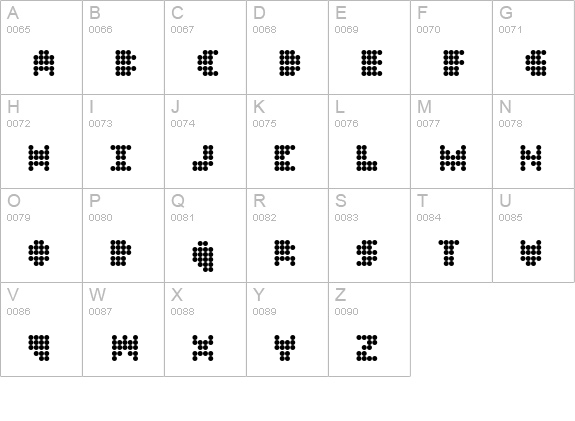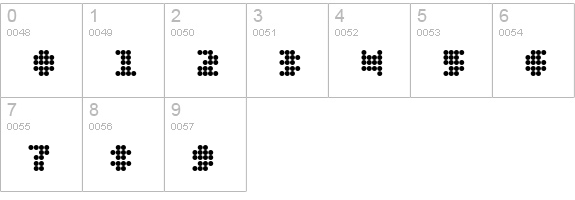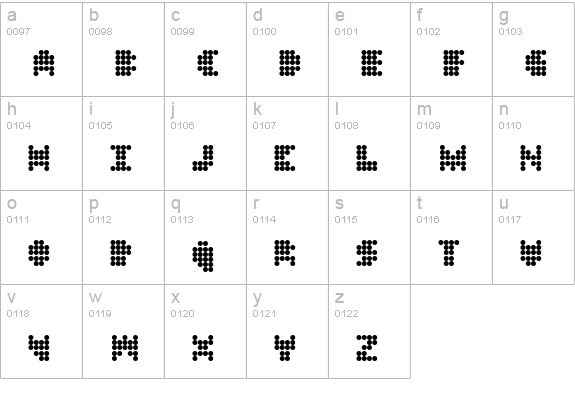
DT 104 Font Details
Introducing DT 104 font, a modern and sleek typeface designed to make your designs stand out. This versatile font is perfect for a wide range of projects, from branding to advertising to social media graphics. With its clean lines and contemporary aesthetic, DT 104 font is sure to make a bold statement. What's even better is that DT 104 font is completely free to download! That's right, you can get your hands on this stylish font at no cost at FontsMarket.com. So why wait? Add a touch of sophistication to your designs with DT 104 font today!